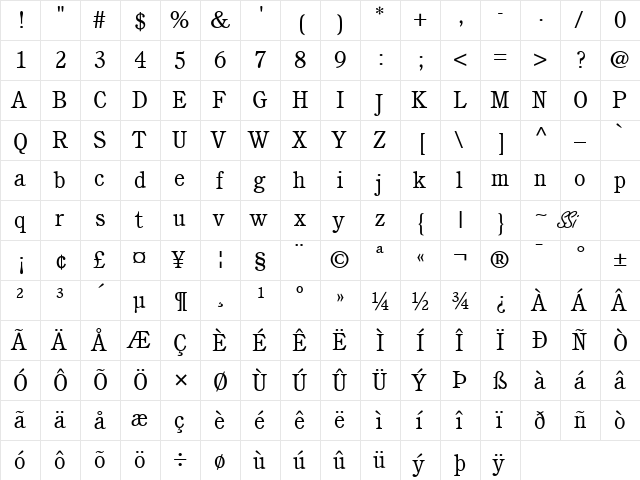
Perspective SSi Regular
Design Context for Perspective SSi Typeface
Perspective SSi is a composed and adaptable typeface that performs quietly and consistently across a wide range of design contexts.